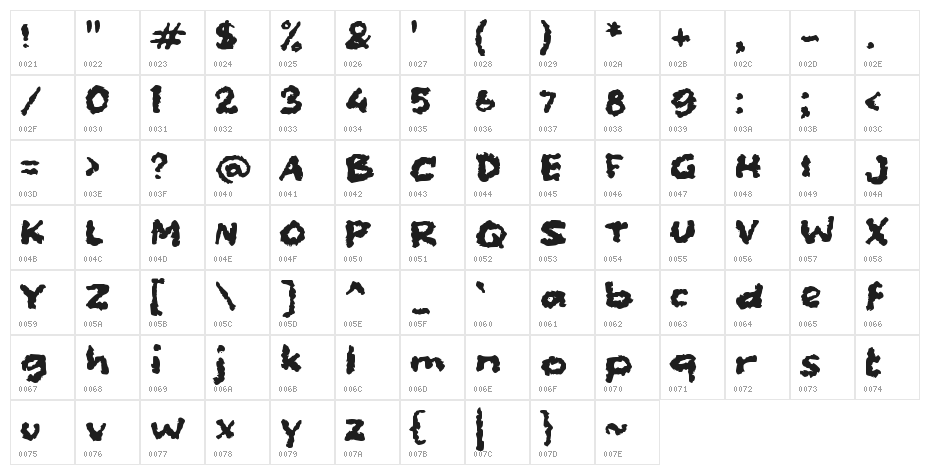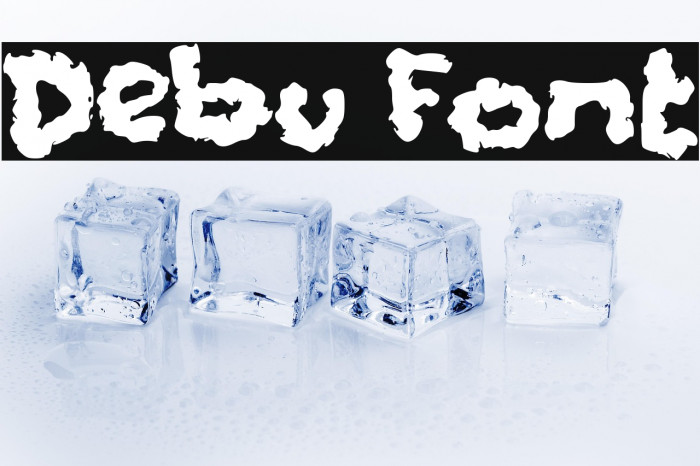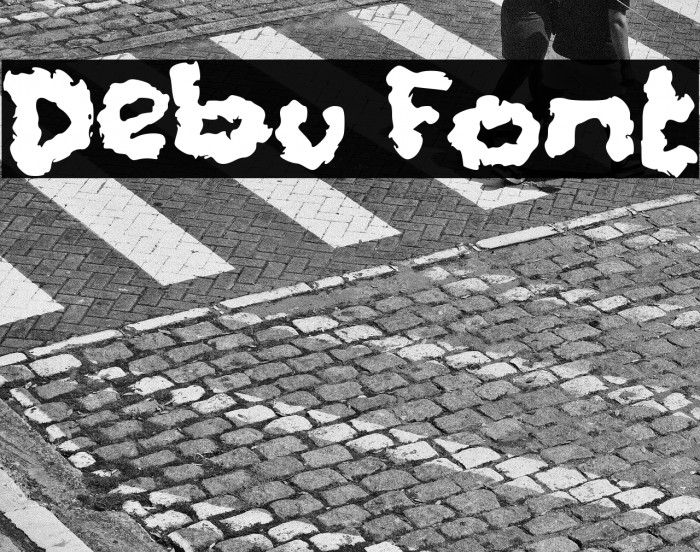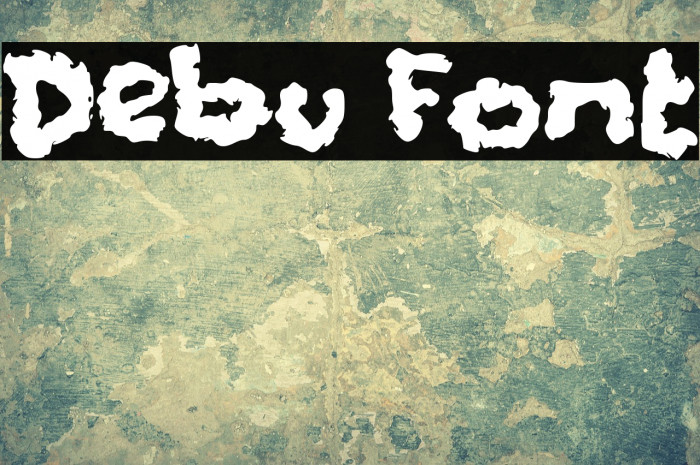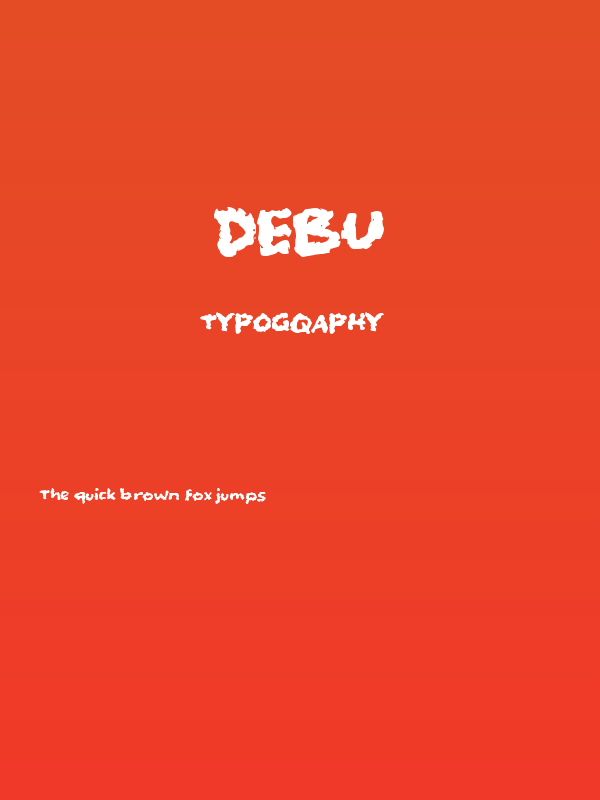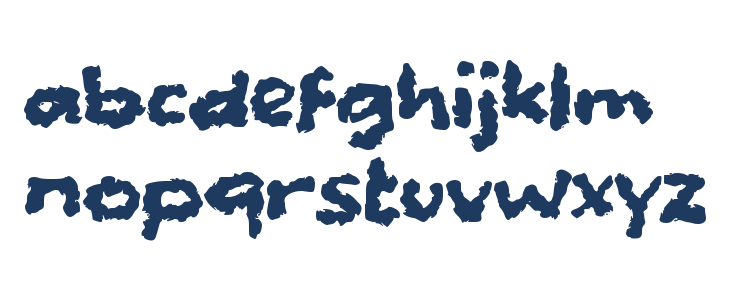
Debu Font
Debu Description
This font features a bold, organic style with a rough, textured appearance reminiscent of brush strokes or splattered paint. The characters are irregular and playful, giving a sense of movement and energy. Each letter is unique, with varying thicknesses and shapes that create a dynamic visual impact. The font's distinctive style makes it stand out, perfect for projects that require a bold and artistic touch. Its chaotic yet controlled design is suitable for creative and unconventional applications.
| Proposed Projects | Ideal for artistic posters, album covers, graffiti-inspired designs, and creative branding projects. |